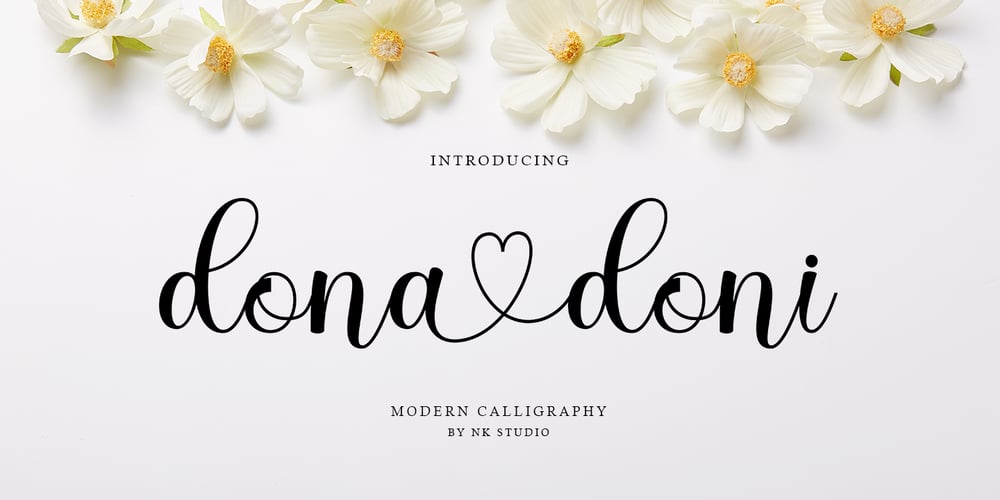
Dona Doni Script
Dona Doni Script font
Dona Doni Script Font Family was designed by Nurul Kamal and published by Nk Studio. Dona Doni Script contains 1 styles and family package options. Dona Doni Modern CalligraphyScript font with a subtle, handwritten style. Equipped with 350 glyphs. Dona Doni is perfect for branding projects, homeware design, product packaging, use in business cards, invitation cards, etc. Simply as a stylish text overlay onto a background image or anything that requires a touch of elegance.